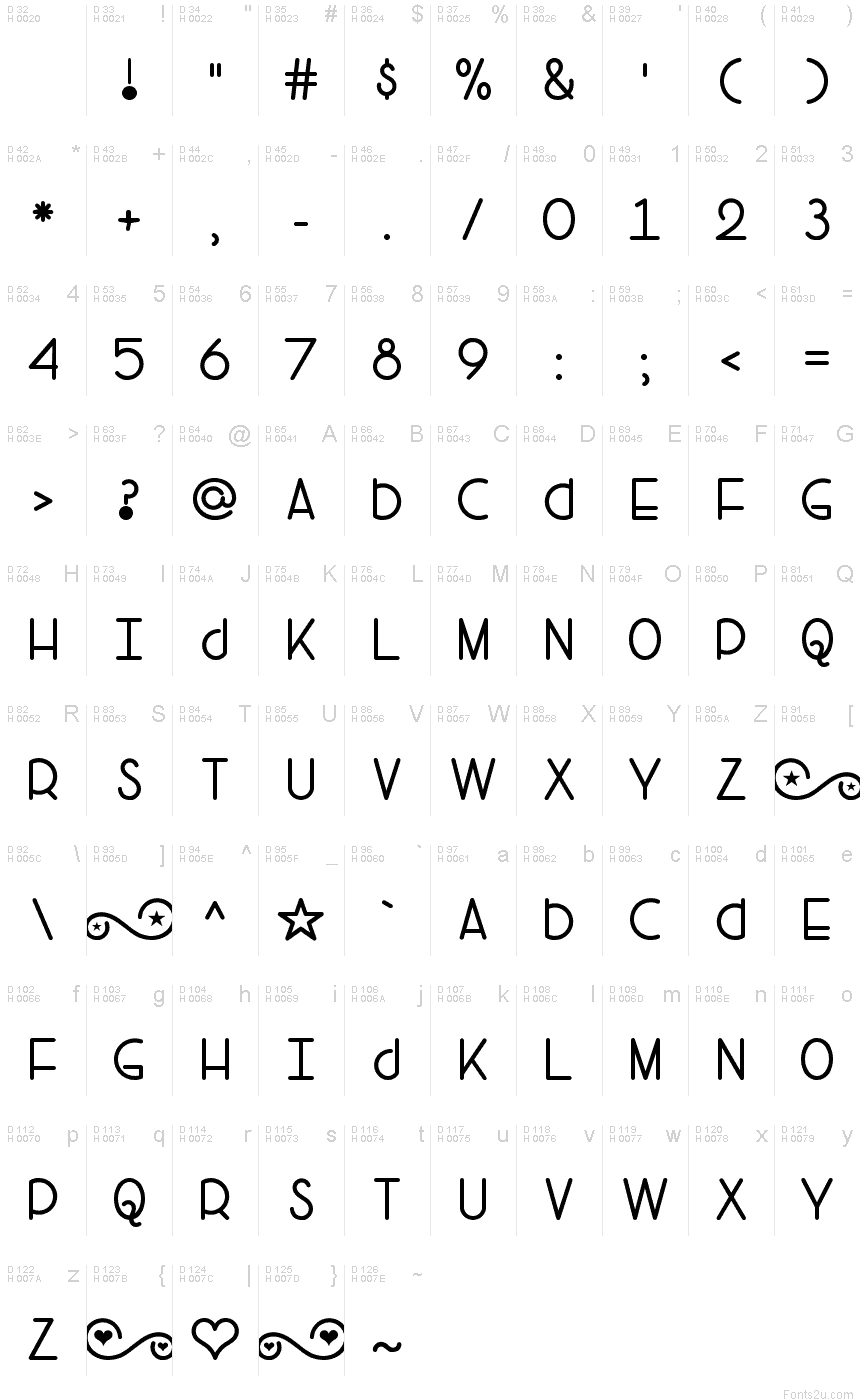
Head Versus Heart by Misti Hammers of Misti's Fonts is a free monoline display font with a light, unconventional silhouette and unusually generous proportions. Its tall, rounded letters use nearly uniform strokes, broad curves, and pared-back joins that keep the shapes open and lightly drawn. The construction feels airy and mechanical, though several characters bend away from familiar geometric forms.
Type _ (underscore) for the star.
Type | (vertical bar) for the heart.
Type {} (curly braces) for the heart swirls.
Type [] (brackets) for the star swirls.